Friendly Fonts In 2023
Friendly fonts might be important to make any design for your event needs now. If you are a graphic designer, and content creator, and often make templates, you can make your job easier with friendly fonts. There are many choices of beautiful fonts that you can apply for greeting card templates, invitations, brands, apparel, and even just unique social media posts.
Best Friendly Fonts to Make Simple but Aesthetic Designs
When creating a design, you tend to be more selective in choosing the right types of fonts according to the theme and brand character. This allows designers to be more creative with various types of stunning fonts. If you want to find friendly fonts, not only simple but also have a unique impression, some of the recommendations below might be a reference.
Friendly Script Fonts
You will find many of these script fonts in various designs or templates, such as greeting cards and invitations. Moreover, these script fonts tend to have various types of letters with beautiful, consistent arcs and are often used to give an elegant impression.
1. Blestive Script
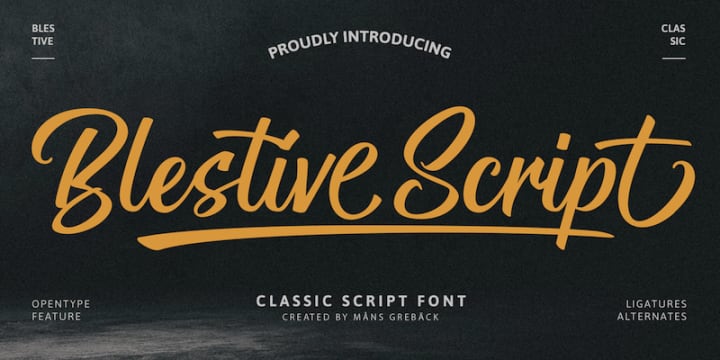
Design with a relaxed theme, with lots of combinations of contrasting color palettes or colorful colors that you can combine with this font from Blestive Script. The letter styles in this font are also diverse and have an artistic impression. It’s available in uppercase, lowercase, and symbols, and it’s free!
2. Midspicy
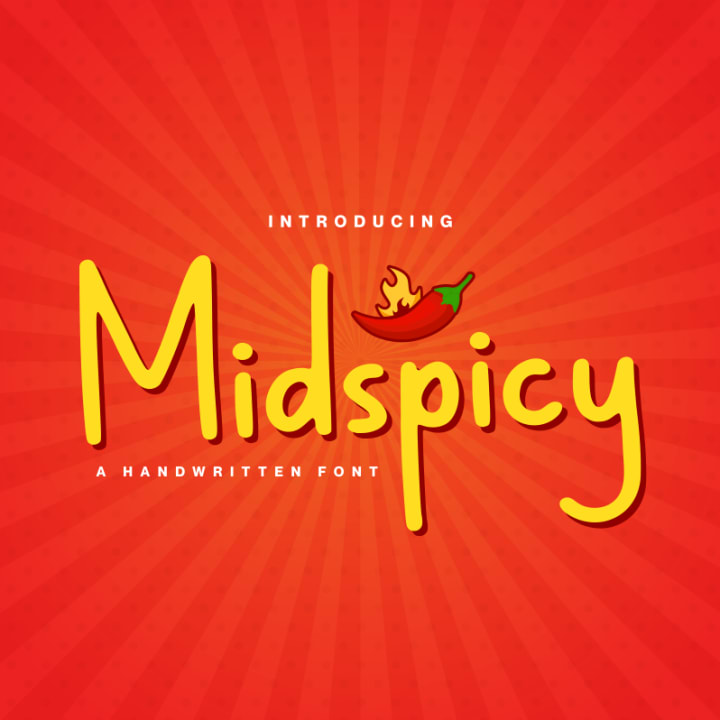
If you are bored with ordinary script fonts, this type of font can be a unique choice. It had a slightly comic style, at first glance, appearing to be neat and eccentric handwriting. These Midspicy fonts are by Allouse Studio, and you can get them for free personal use at Dafont.com.
3. Pastella Autography
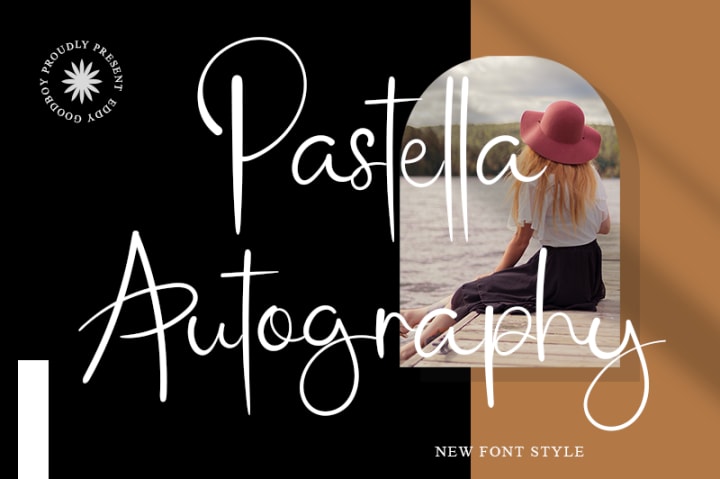
Pastella Autography has a friendly font style that is suitable for those of you who like to place designs with a touch of calligraphy. Unlike complicated calligraphy, this font is much simpler so it is a friendly choice for you.
Basic Simple and Friendly Fonts
Who doesn’t know basic fonts such as serif and sans serif? Consistent simple letters, giving a neat impression. Almost every design need has at least used a basic set of letters to write product descriptions, subtitles, and even titles on displays.
1. Pricedown
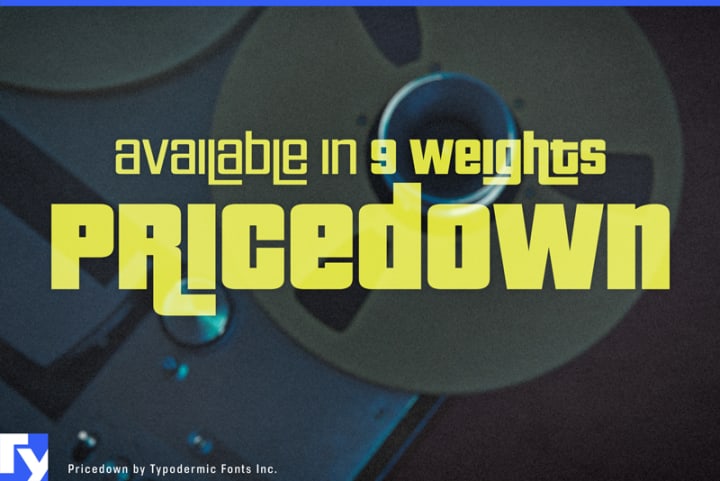
Pricedown is a font that offers a bold, firm style, but still has the impression of a friendly font. At first glance, this font style is suitable for futuristic designs, so you might find it suitable for game designs and other displays.
2. Bavaria Gates
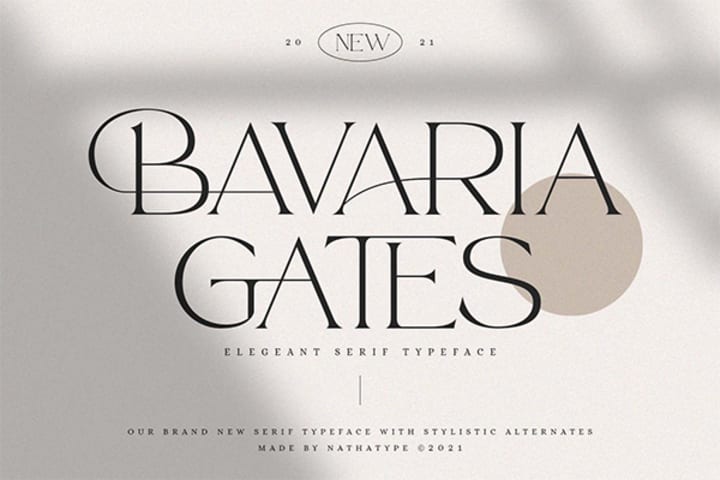
Do you prefer light fonts, and have bold letters, but are still artistic for titles or displays? So Bavaria Gates is a basic font that offers an elegant side with curved accents that are not excessive.
3. Moores
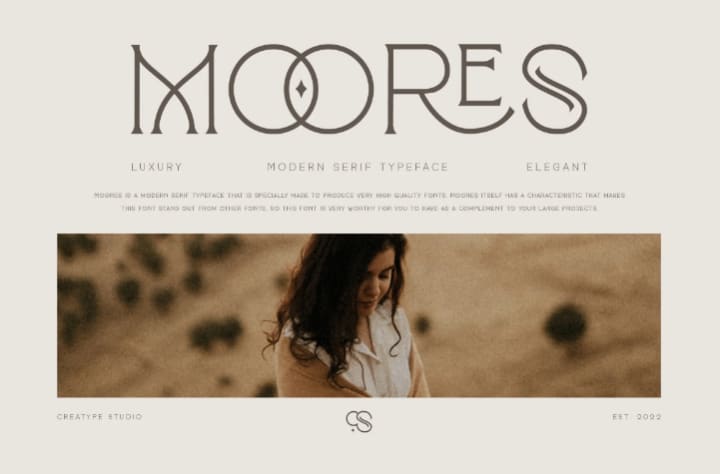
This collection of letters in fonts from Moores is suitable for filling in titles and descriptions. Moores has a collection of alphabets that are light, simple, and with character.
Fancy Fonts
There are many types of friendly fonts that you might choose for various design moods and templates. But, if you want to find a type of font with one-of-a-kind letters, then some of these fonts give a more festive, fancy, and also unique look.
1. Foxykids
Do you need fonts for displays that have a fun impression? Then Foxykids is the right choice for you. These fonts would be suitable for desktop titles, websites, games, and book covers. If you are interested, get the license now!
2. Kattana Japanese Style
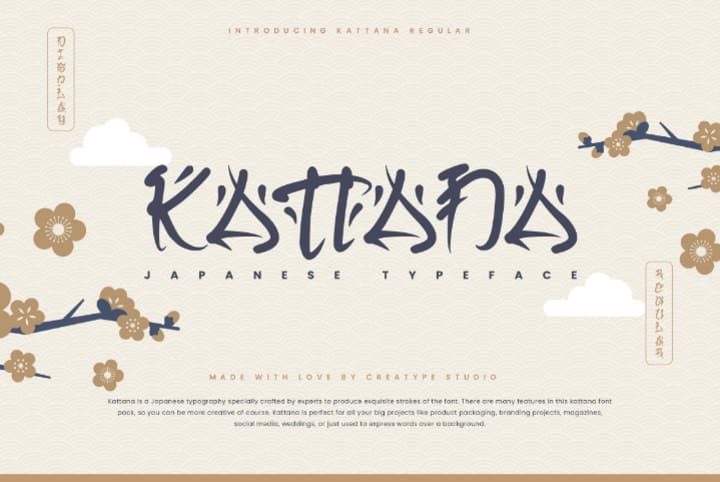
For some situations, you might want to create a design that has a specific theme, such as Japanese, Chinese, or Korean. As the name implies, Kattana Japanese Style is a friendly font with a typical Japanese Hiragana letter style. If these fonts are what you are looking for, then you can get them at Creatype Studio.
3. Kinantan
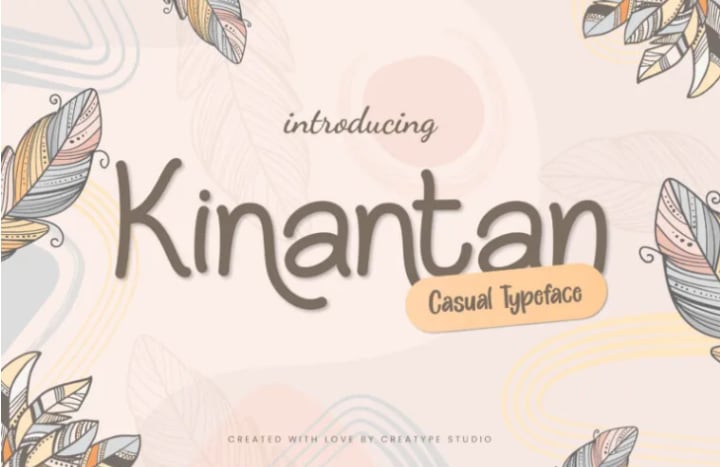
Unlike the Japanese style, this font from Kinantan offers a more casual writing style and friendly fonts. The style of these fonts feels good when paired with casual templates, which are more romantic, or artistic themes. For example, bohemian, kids, or other fun themes.